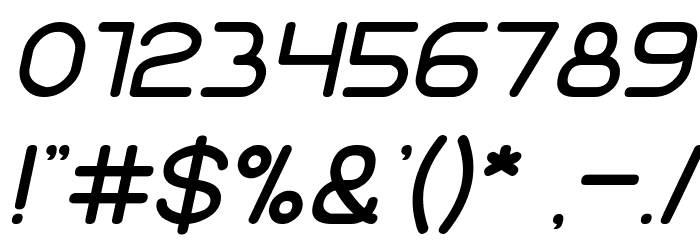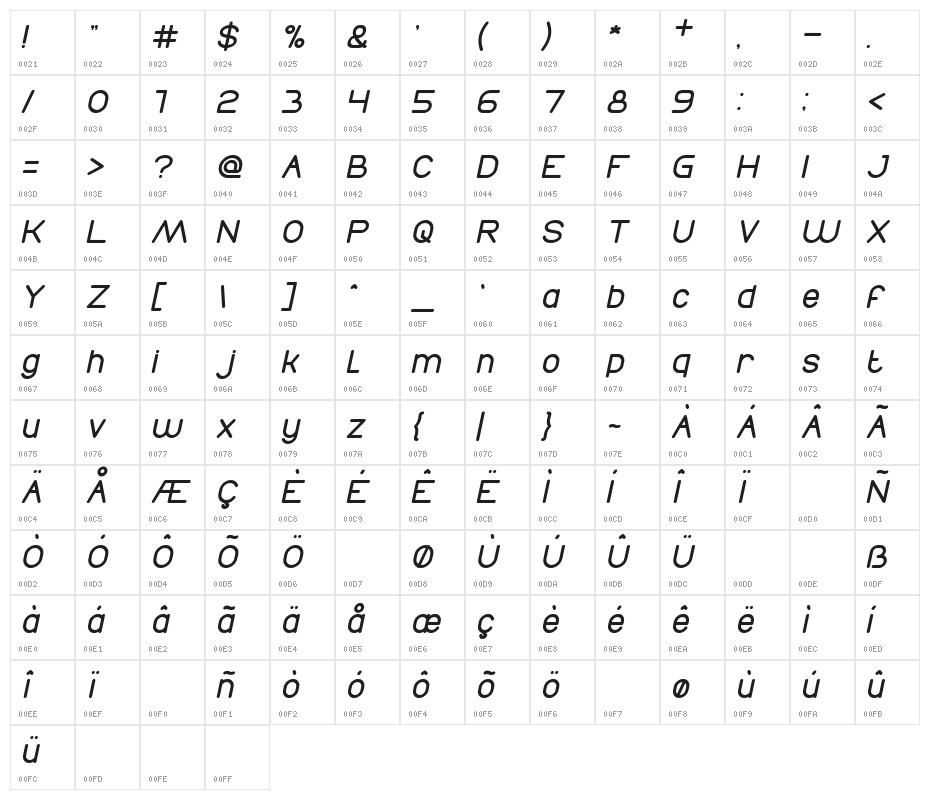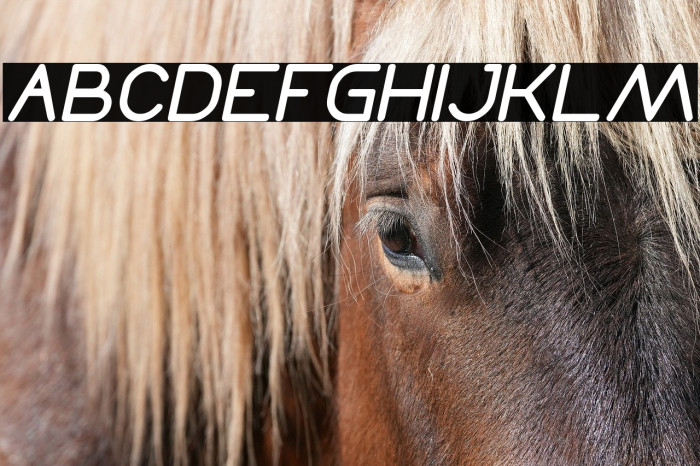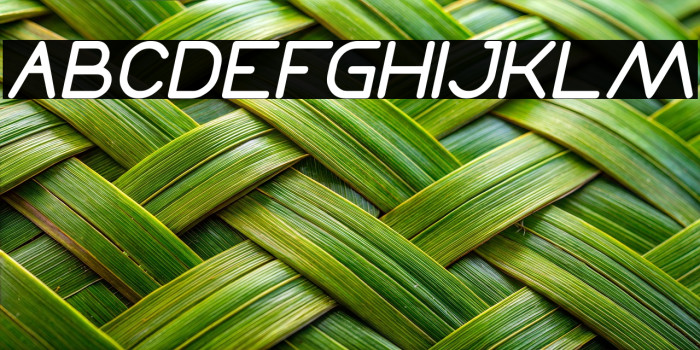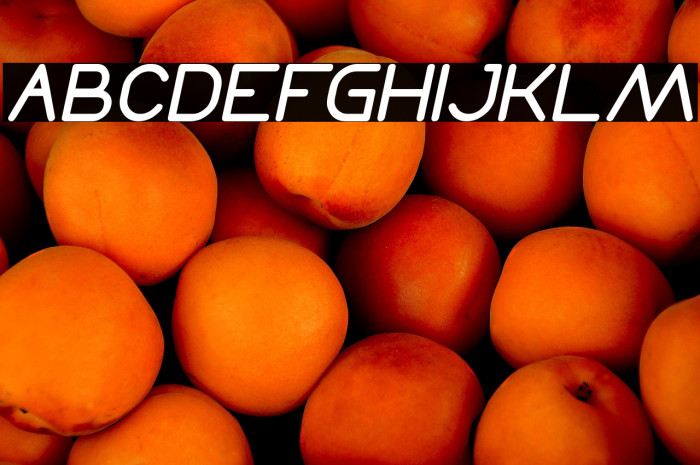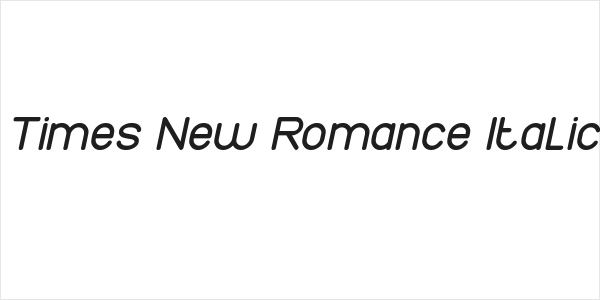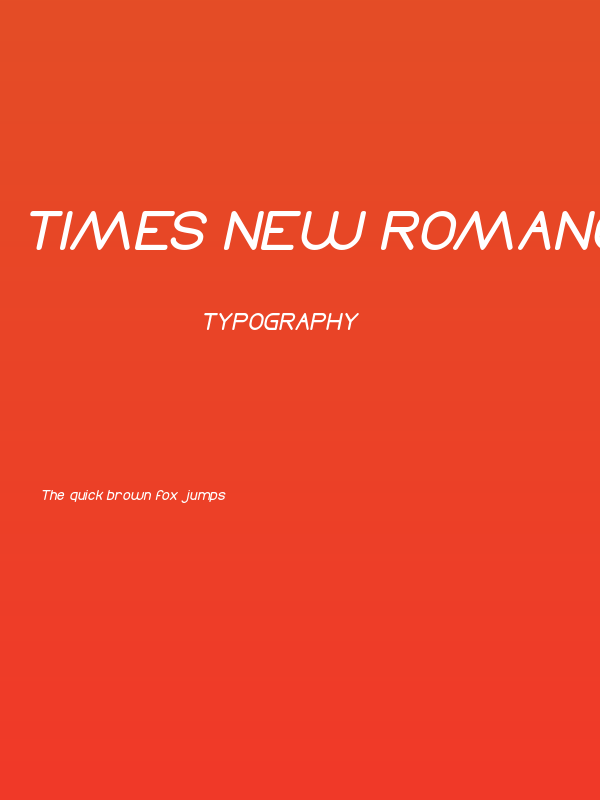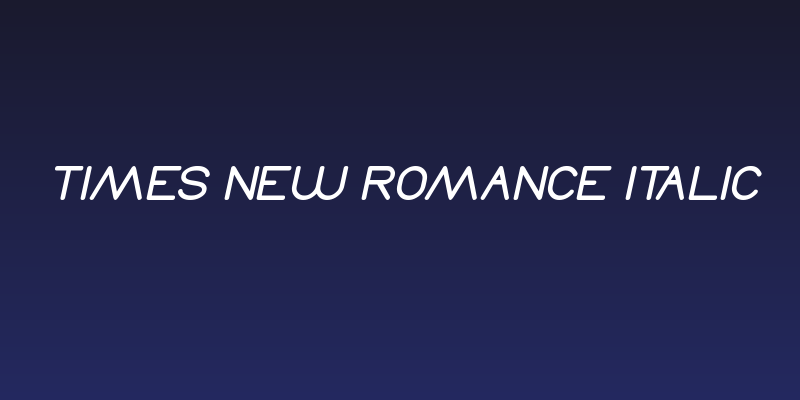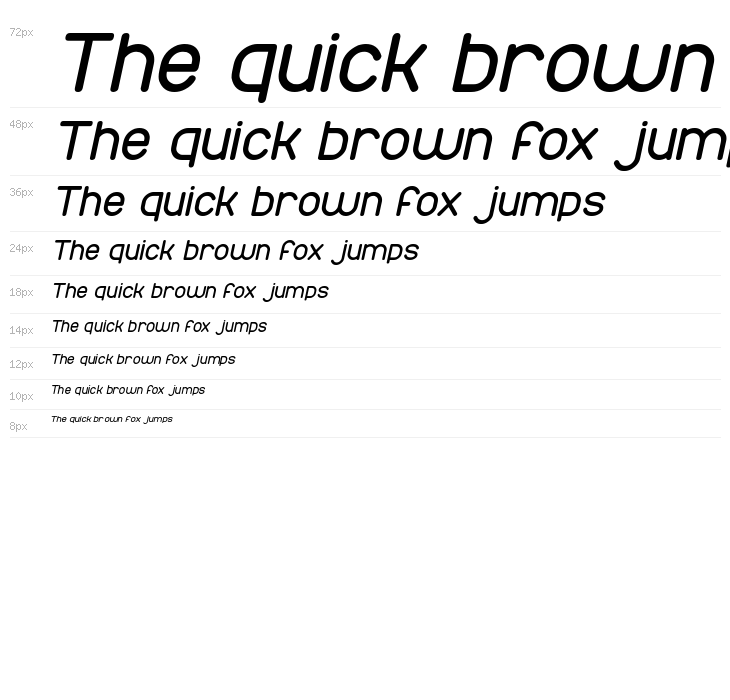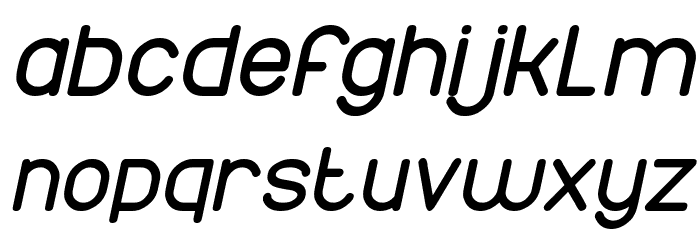
Times New Romance Italic Font
Times New Romance Italic Description
This font features a sleek and modern design with a slight italic slant, giving it a dynamic and forward-moving appearance. The characters are rounded and smooth, providing a clean and approachable aesthetic. The uppercase letters are bold and prominent, while the lowercase letters maintain a consistent style with a slightly more delicate touch. Numbers and special characters are designed to match the overall style, ensuring uniformity across all text elements. The font's design is versatile, making it suitable for various applications where a contemporary and stylish look is desired.
| Use Case | Headlines, Logos, Digital Media |
| Proposed Projects | Ideal for branding, advertising, digital media, and editorial design projects. |